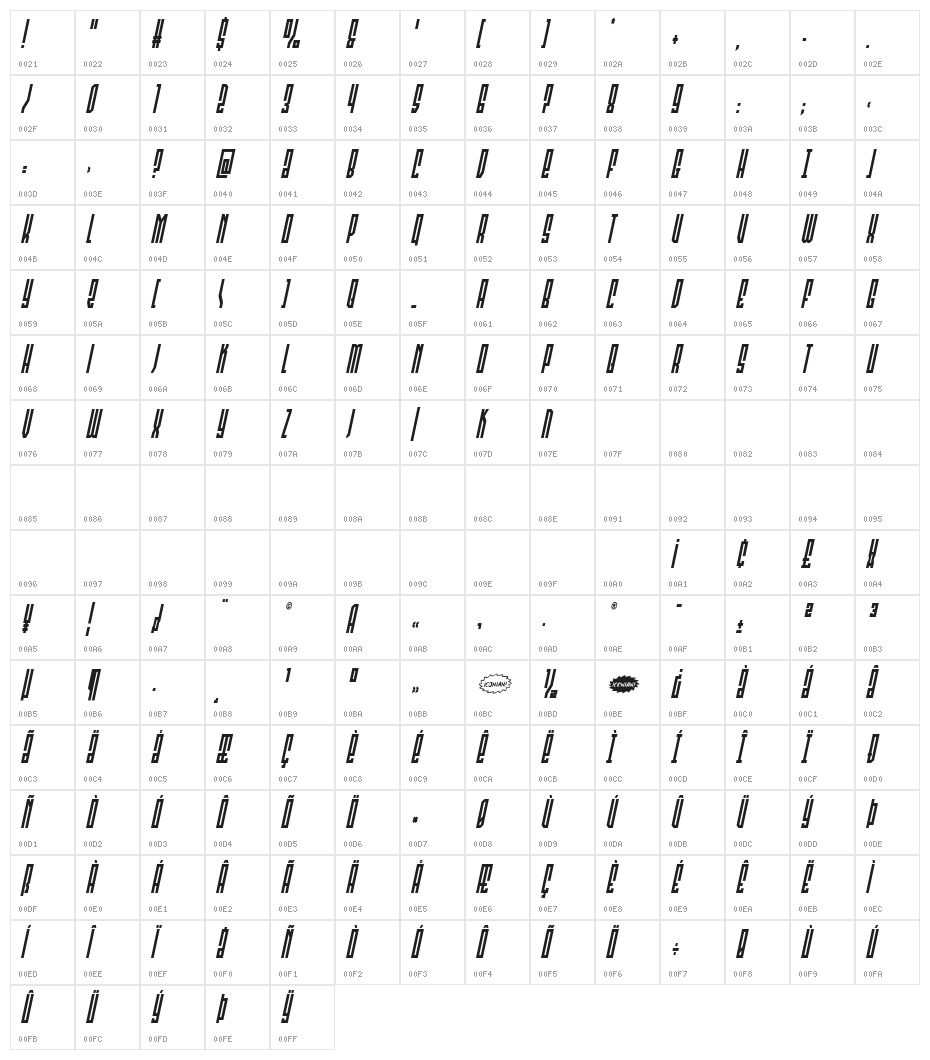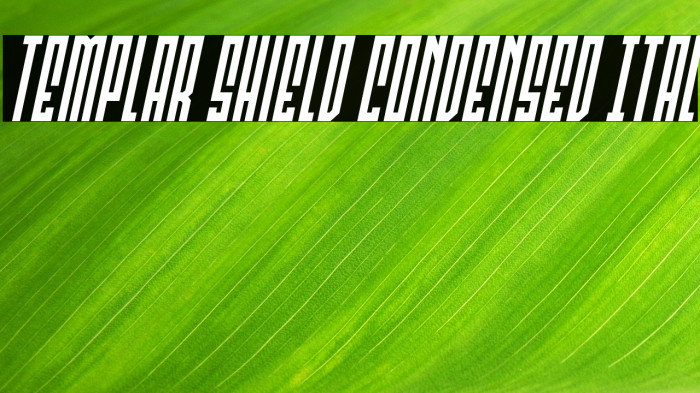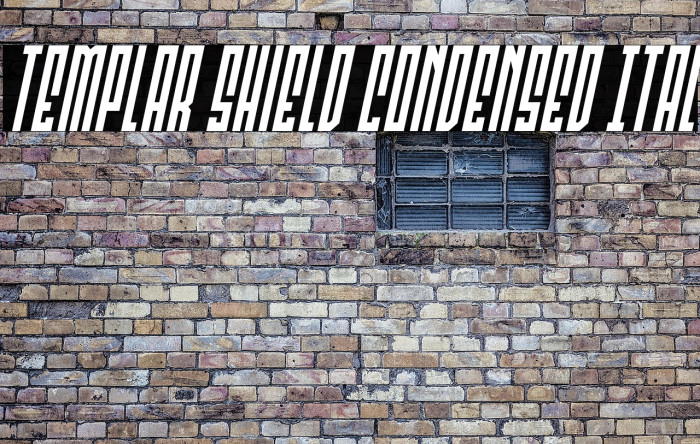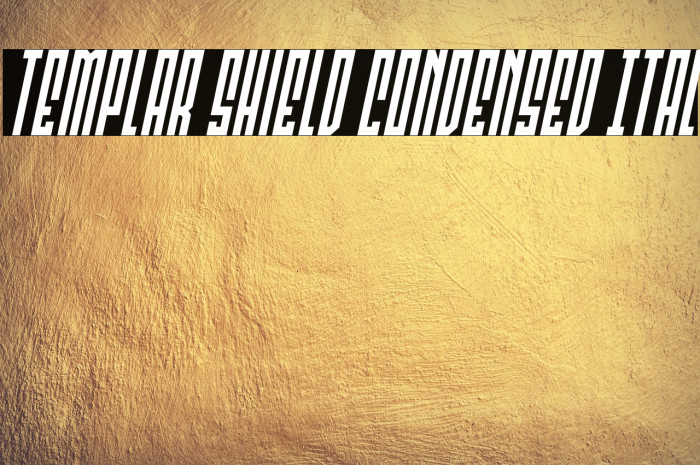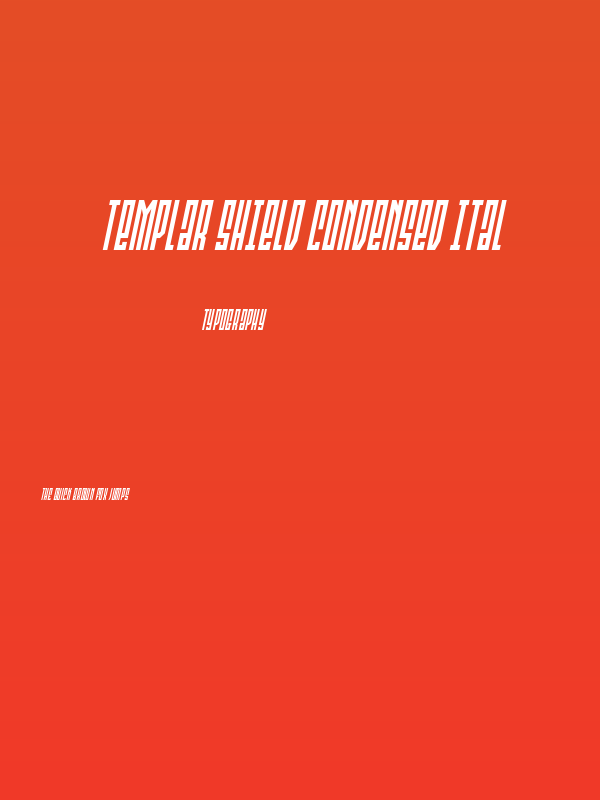
Templar Shield Condensed Ital Font
Templar Shield Condensed Ital Description
This font features a bold and condensed style with a distinct italic slant, giving it a dynamic and energetic appearance. The characters are tall and narrow, contributing to a compact and efficient use of space. The angular design elements add a modern and edgy feel, making it suitable for attention-grabbing headlines or titles. The uniform stroke width across characters provides a consistent and cohesive look. The font includes a full set of uppercase and lowercase letters, numbers, and a variety of special characters, ensuring versatility in different design contexts.
| Proposed Projects | Ideal for sports branding, dynamic posters, edgy magazine covers, and modern web design. |